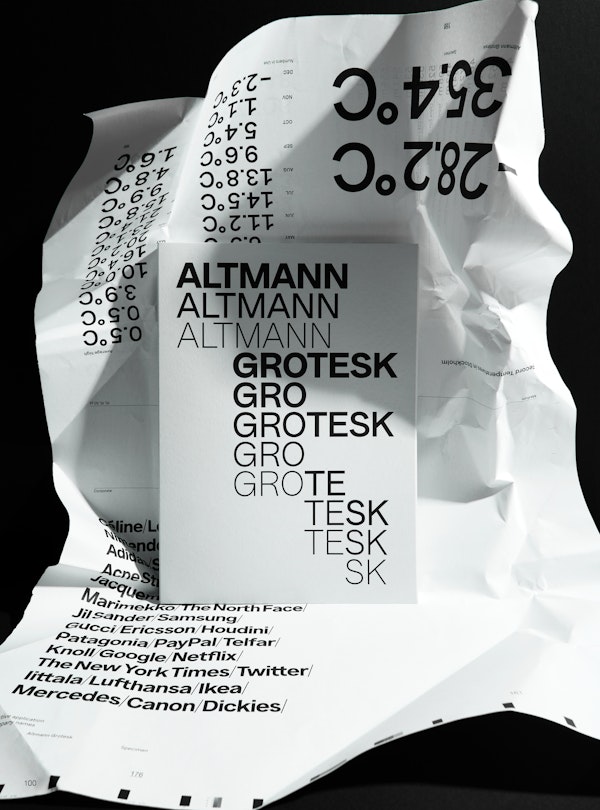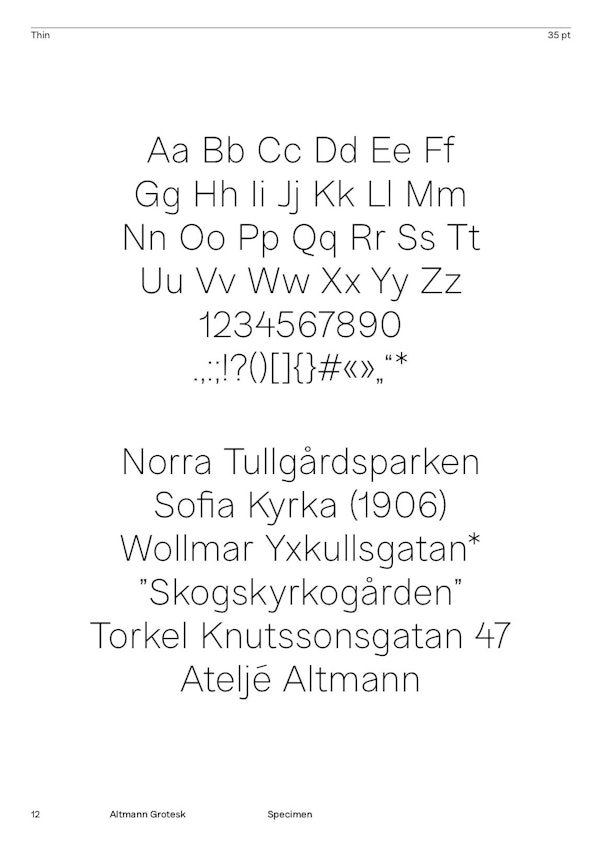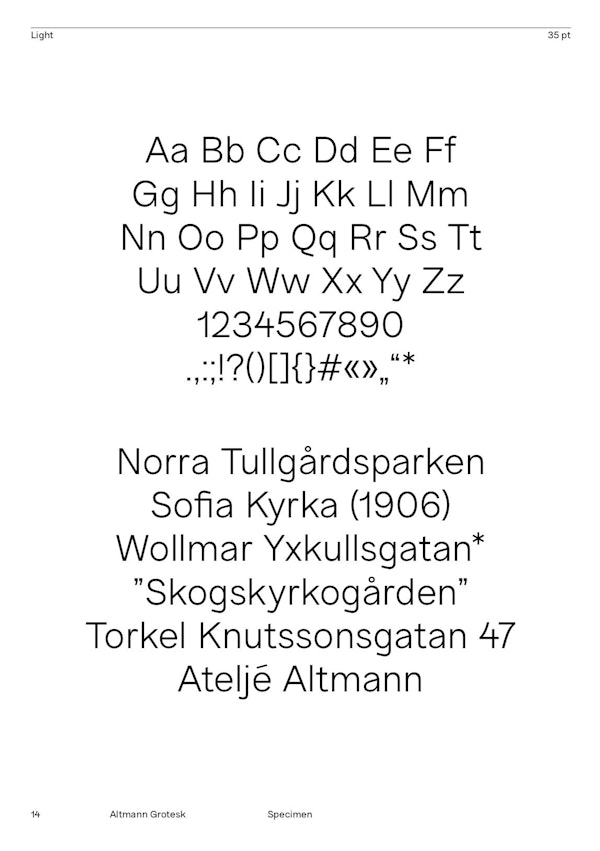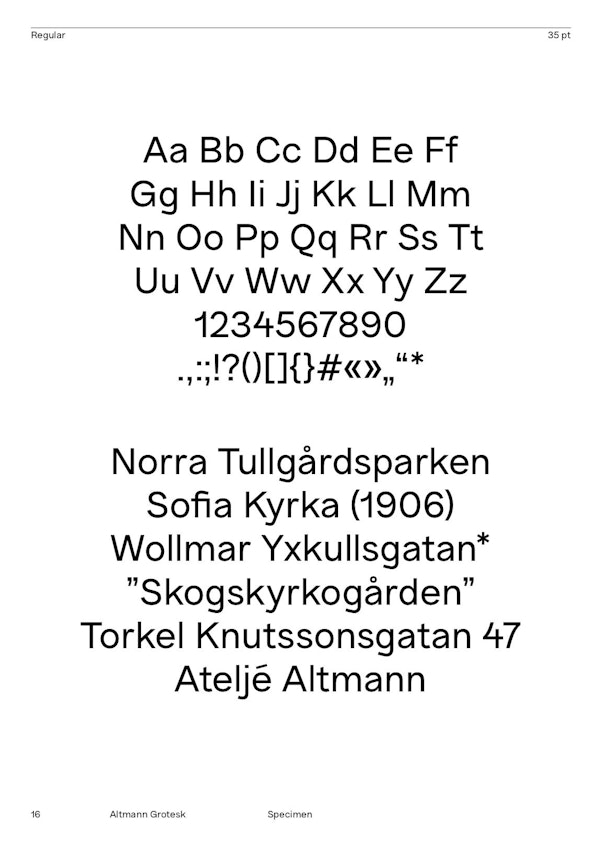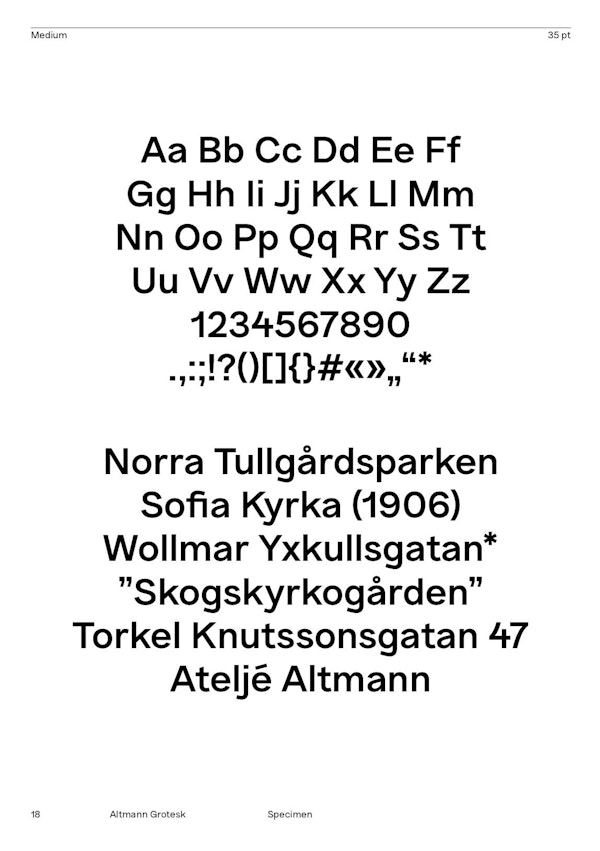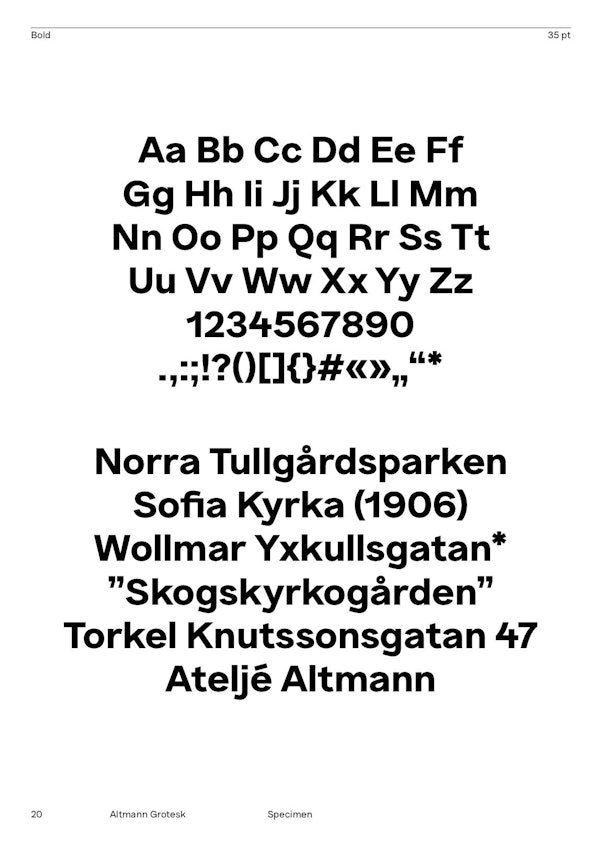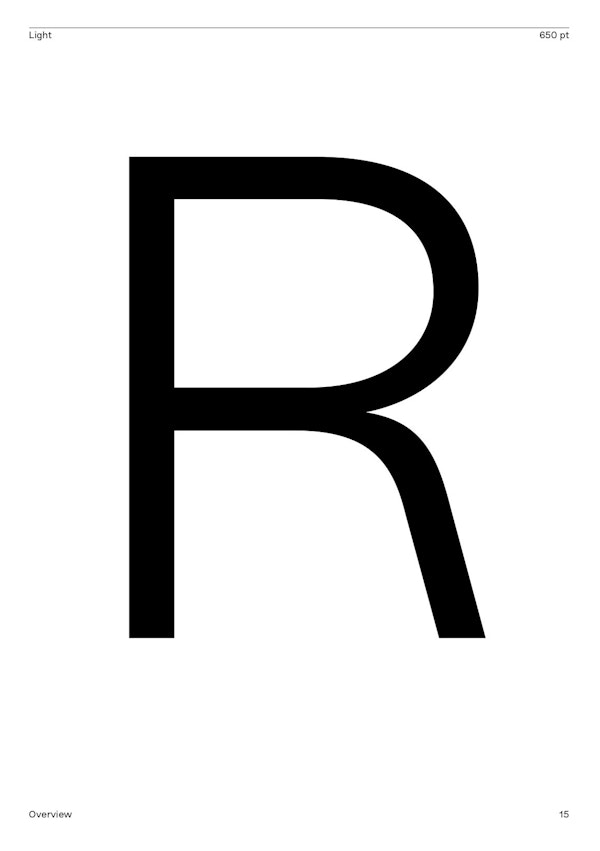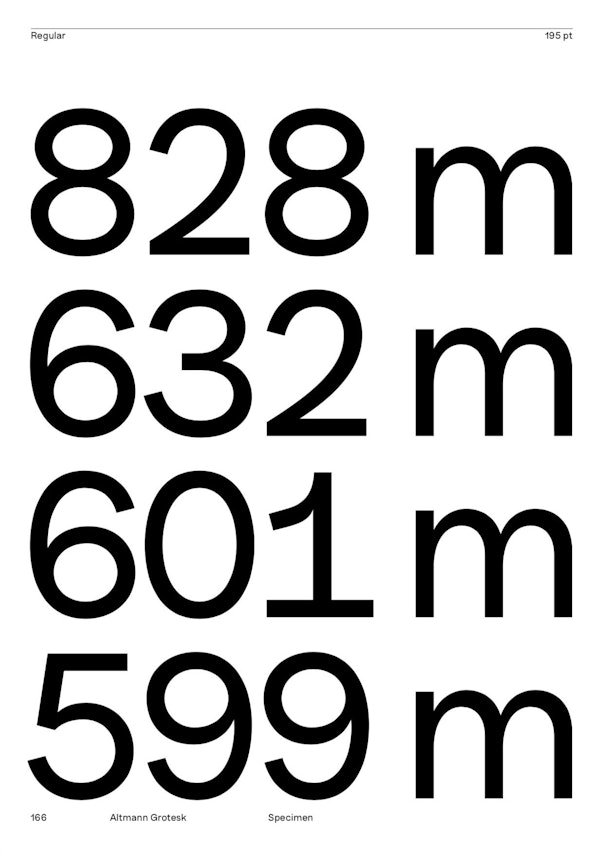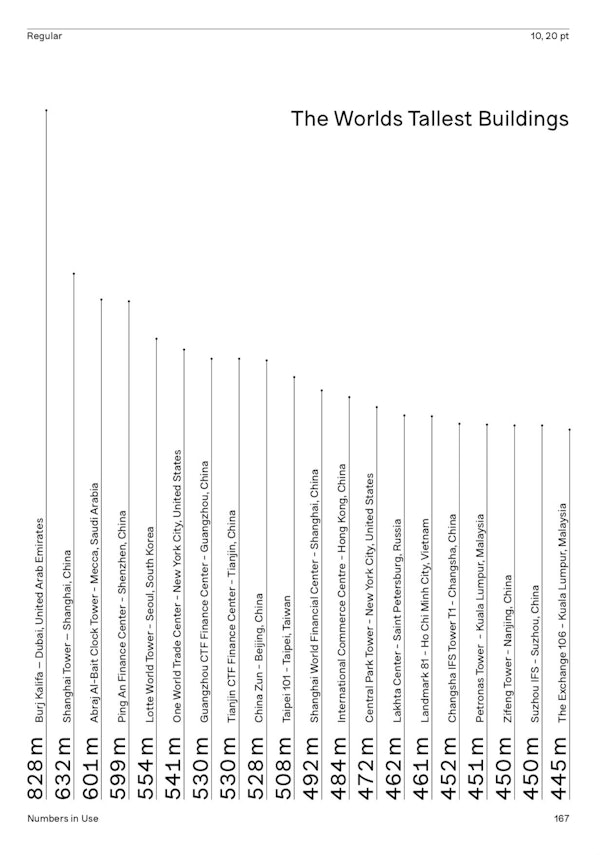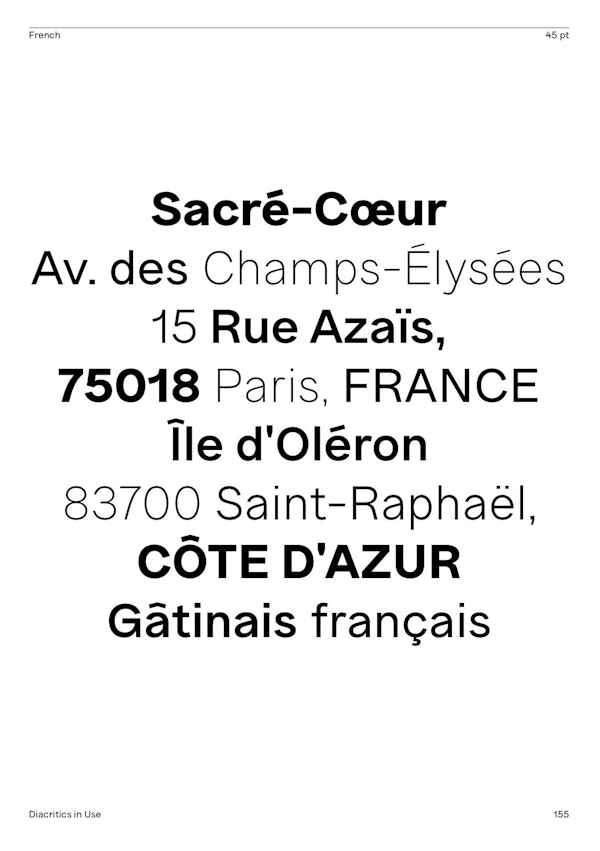
Altmann Grotesk Typeface
Ateljé Altmann
2020
After thoroughly researching both classic and contemporary sans serif typefaces, the aim for Altmann Grotesk was set at joining unobtrusiveness yet distinctiveness in one look. As a result, the sans serif successfully embraces a polarizing image of minimalism and uniqueness. During the design process of Altmann Grotesk, it soon became clear that it had the potential to be more than a studio typeface—which ultimately led to a sans serif font family with five distinctive weights that are perfected to fit every possible typography use case.
• Weights: Thin, Light, Regular, Medium, Bold
• Art Direction/Design: Ateljé Altmann
• Type Design: Janik Sandbothe
• Mastering: Alphabet Type Berlin
• Glyph count: 450
• Supported Languages: Western Europe, Central/Eastern Europe, Baltic, Turkish, Romanian